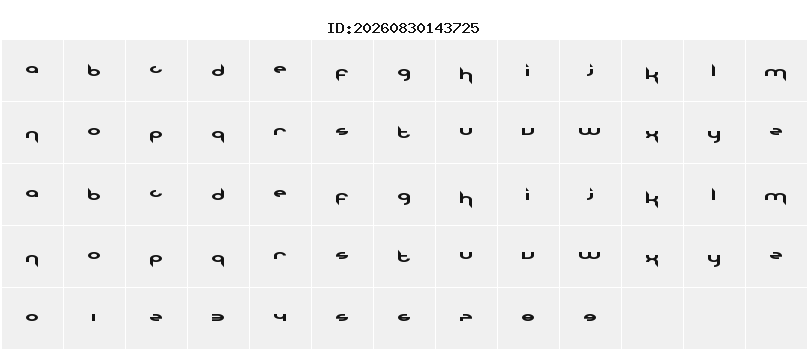
The Nineties Called They Want Their Font Back Preview
• Font Name: The Nineties Called They Want Their Font Back
• Full Font Name: The Nineties Called They Want Their Font Back Regular
• Designer: Andrew McCluskey
• Description: ‚ÄúThe Nineties Called They Want Their Font Back‚Äù was built with FontStruct
About The Nineties Called They Want Their Font Back.ttf
The Nineties Called They Want Their Font Back.ttf is a modern, elegant sans-serif font designed for ultimate readability and visual harmony. Perfect for branding, headlines, web design, and print materials.